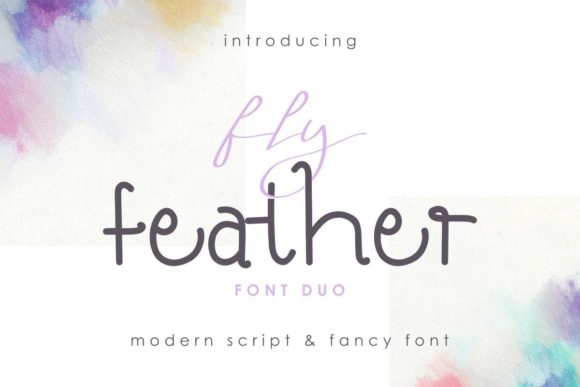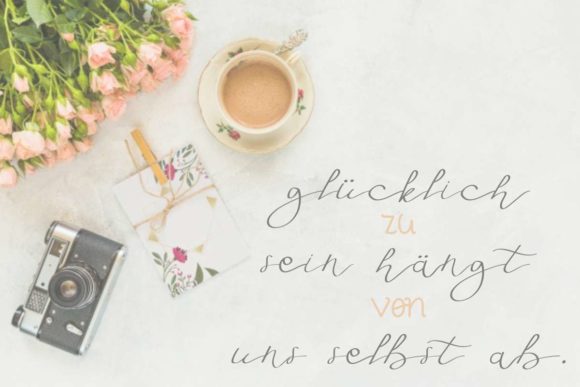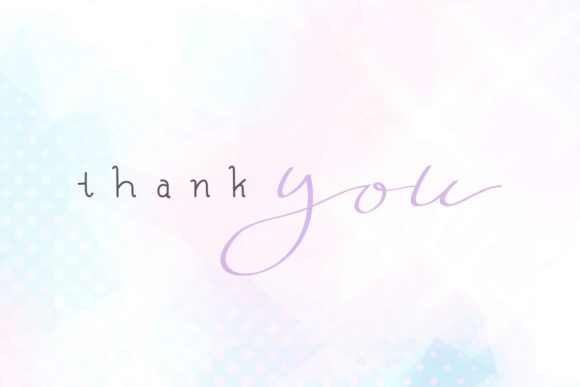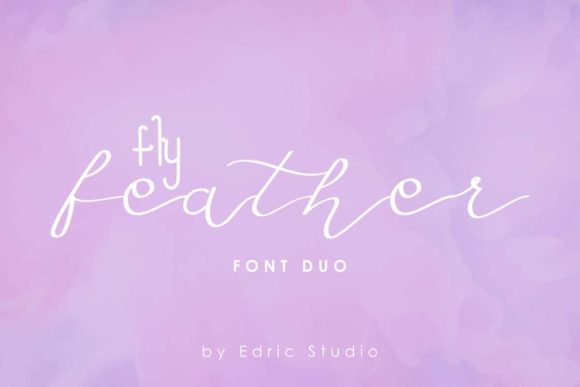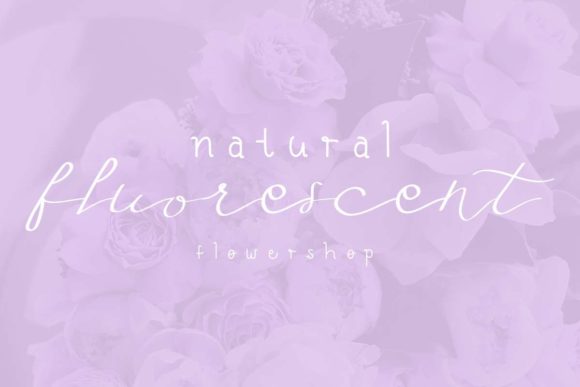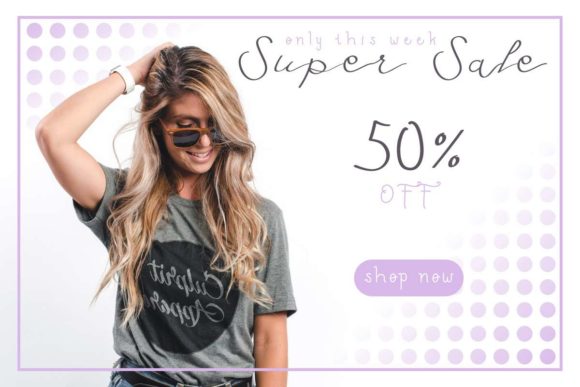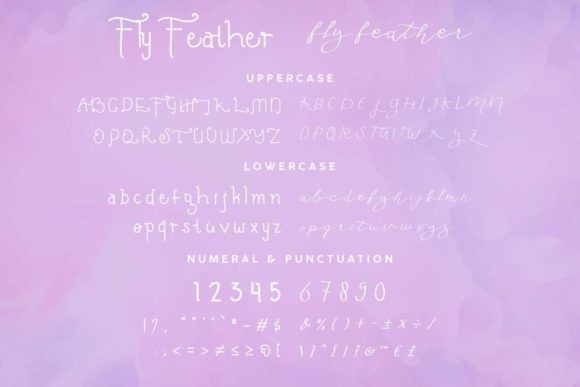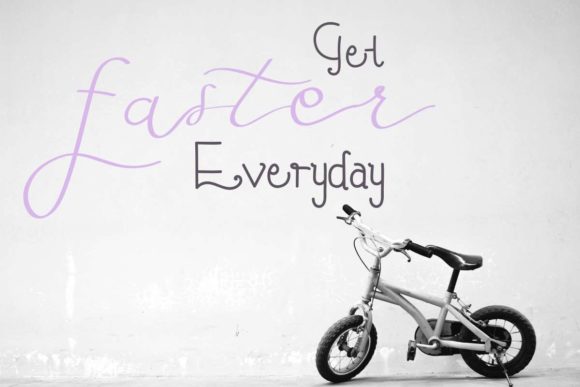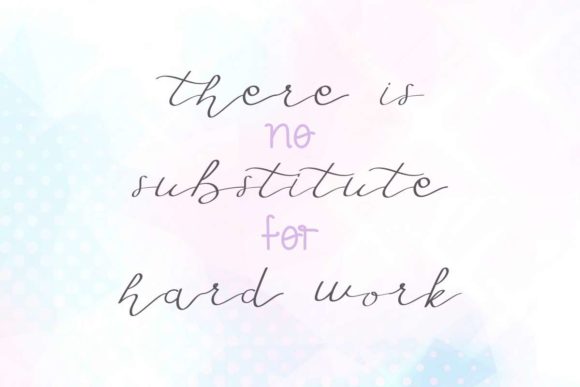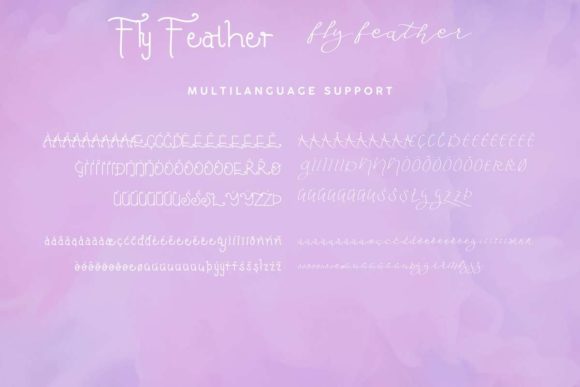
Fly Feather Duo Font
About Fly Feather Duo Font
Fly Feather is a heavenly and majestic font duo with a gorgeously light feel. Use it to elevate any design project to the highest level!